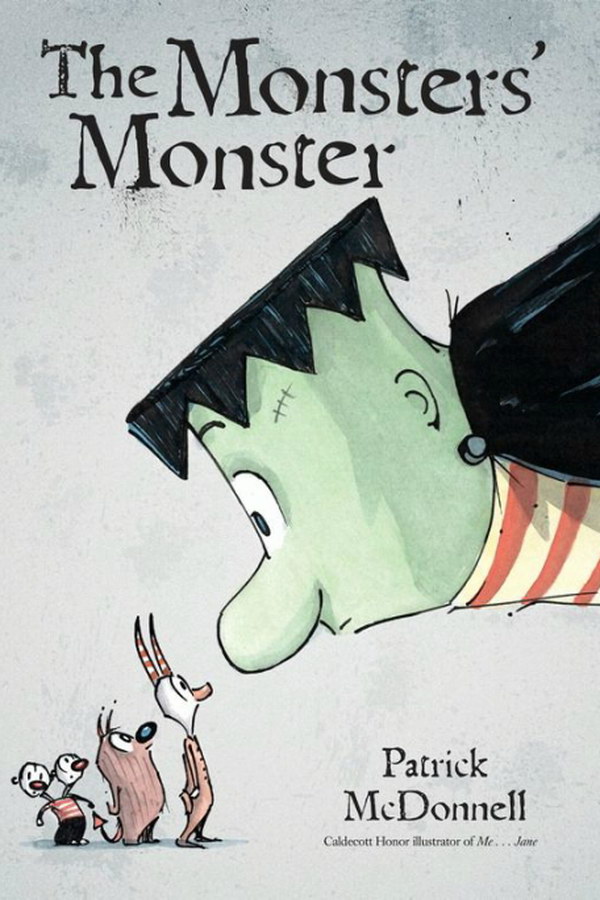
The Monsters' Monster Font
BookThe Monsters’ Monster is a children's book written and illustrated by Patrick McDonnell. It tells the story of a group of monsters who come together to build the ultimate monster, only to discover the true meaning of friendship and acceptance.
The Monsters’ Monster title on the book cover seems to use Telegdi Pro Reg designed by Amondó Szegi. Telegdi Pro is a dingbat, historical, and script font family with nine styles. You can get more information about the font here.